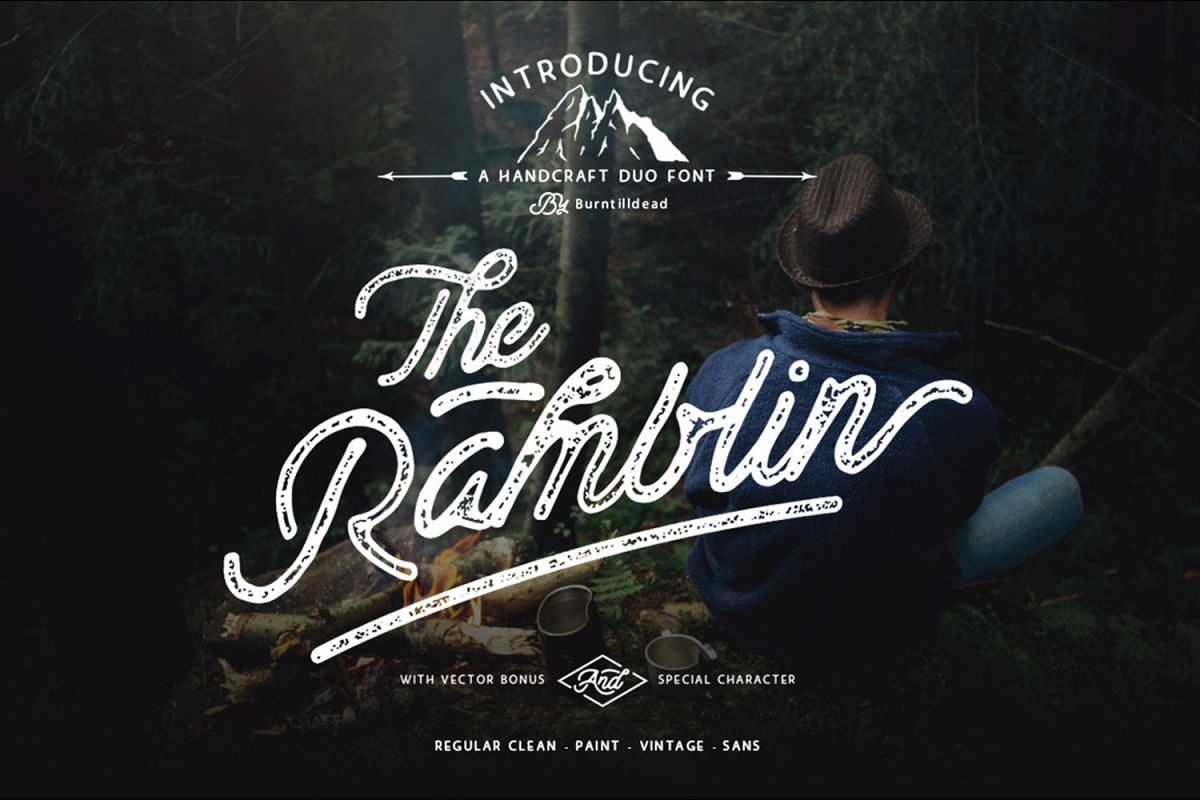
Ramblin Font Duo
Say hi to new duo font "Ramblin script with 3 styles & The hand painted Ramblin sans".
Ramblin Script inspired from ink & tints manual handdrawn brush
to make a natural messy, with alternate glyphs and ligature of type
could help you make a stylish design, and alternate character could
bring a good display. Each glyph made manually one by one with very
diligent and consistency.
It also provided with clean look version that you can choose for simple
and modern design.
Suitable for any graphic designs such as branding materials, t-shirt,
print, business cards, logo, poster, t-shirt, especially for nature
photography and quotes.
Ramblin Script Features:
Uppercase Character
Lowercase Character
Stylistic Character
Alternatives Character
Ligatures
Punctuation & Symbol
Special Character
International Language
Open Type Features
Ramblin Sans Features:
Uppercase Character
Lowercase Character
Punctuation & Symbol
Special Character